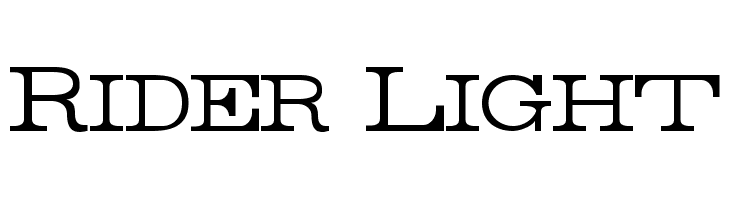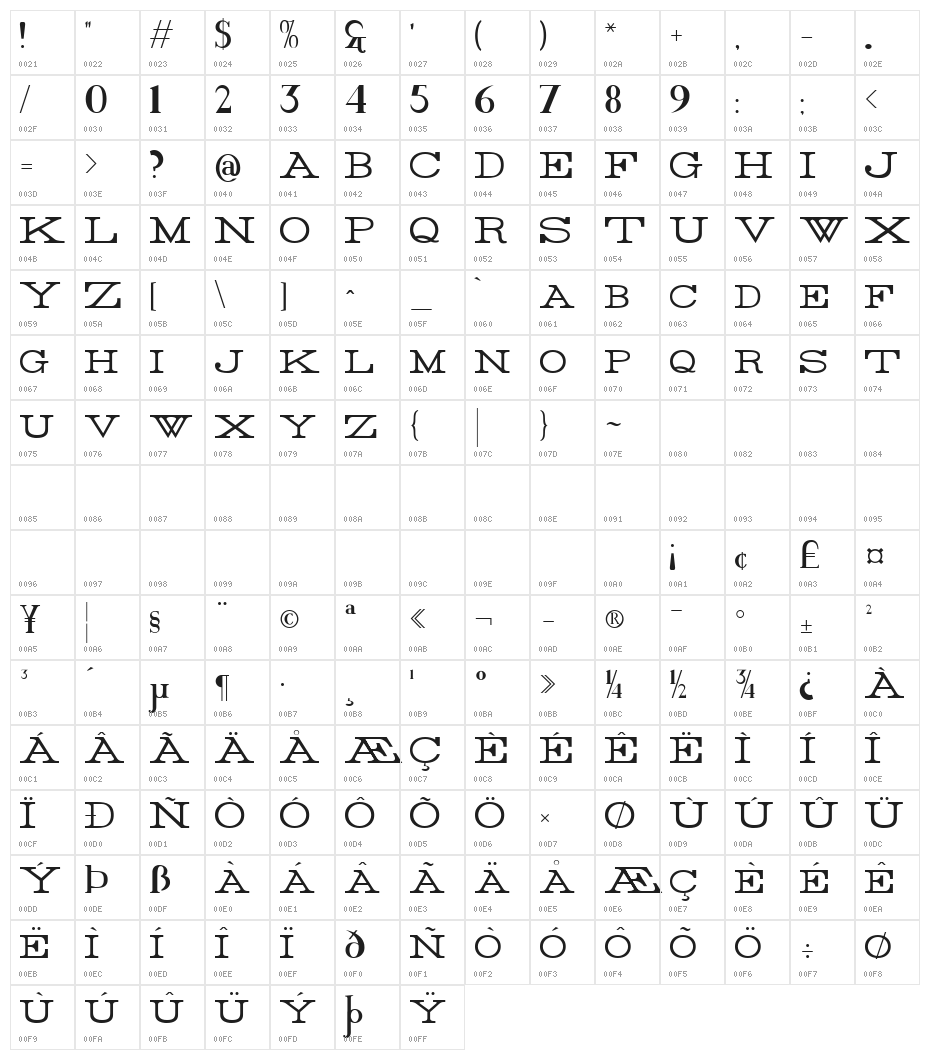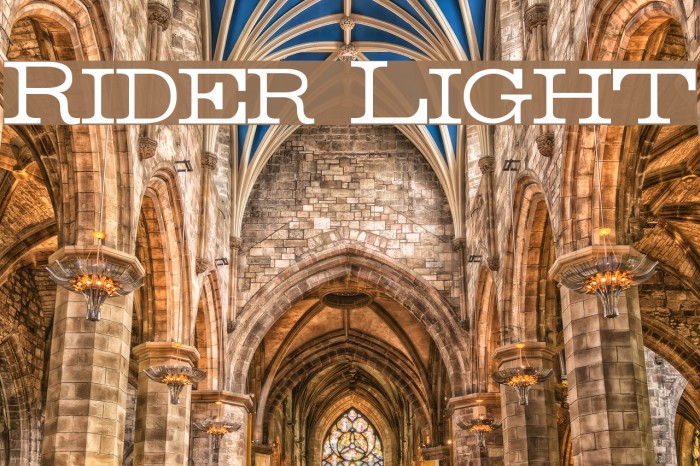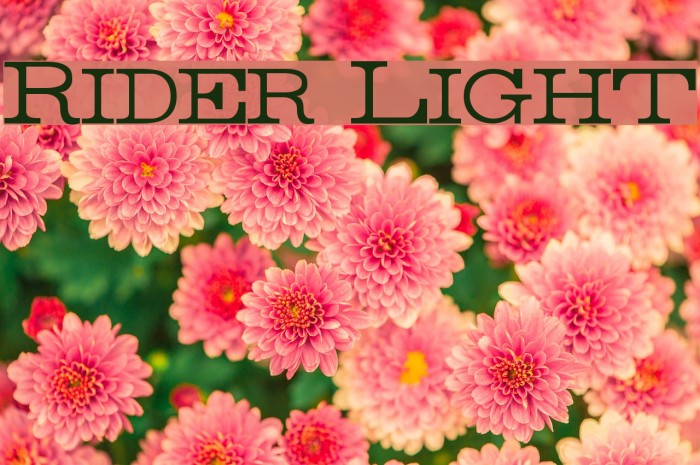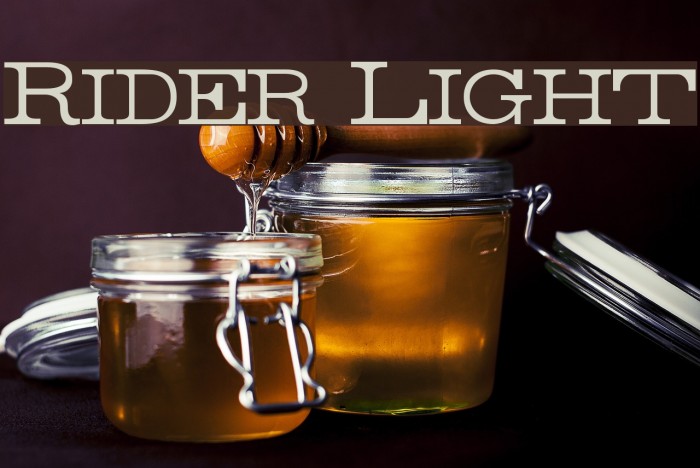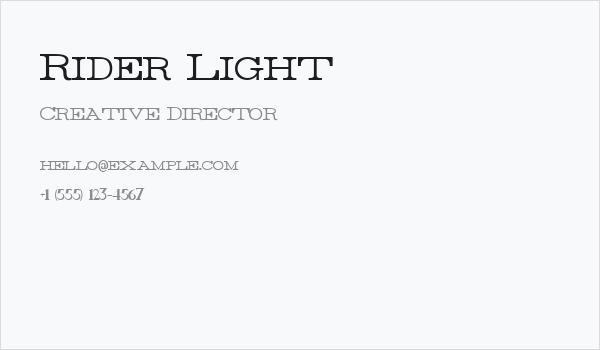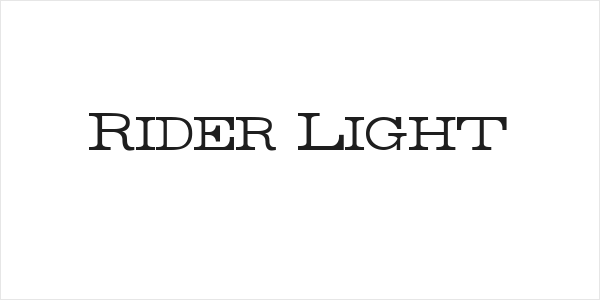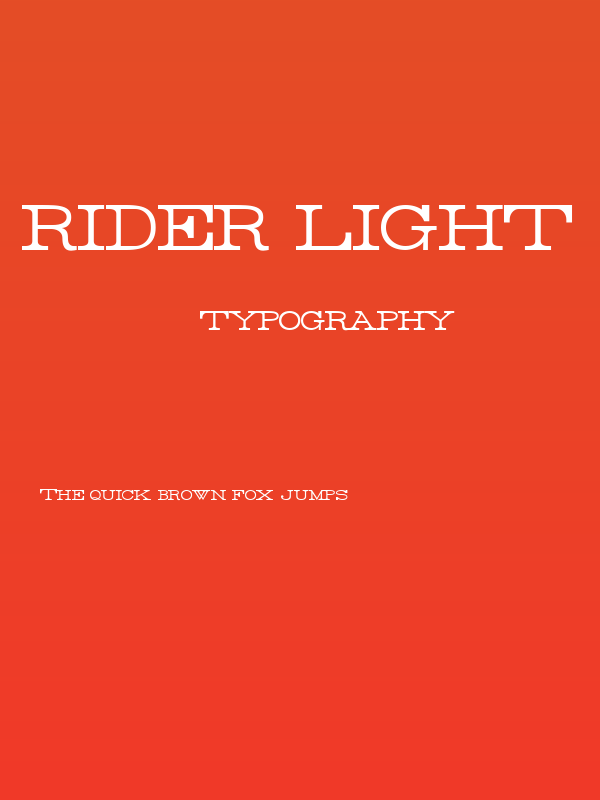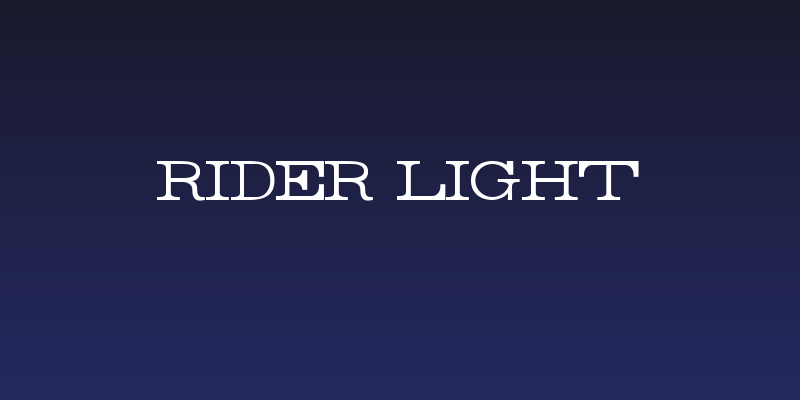
Rider Light Font
Rider Light Description
This font features a classic serif design with a modern twist. The uppercase letters are bold and commanding, with sharp serifs that give them a strong presence. The lowercase letters maintain a consistent style, offering a harmonious blend with the uppercase. The numerals are distinct and easily readable, with a slight flair that adds character. Special characters are well-defined, maintaining the overall aesthetic of the font. The stroke contrast is medium, providing a balanced look that is neither too stark nor too subtle. This font is versatile, suitable for both formal and creative applications.
| Proposed Projects | Ideal for editorial design, book covers, branding, and formal invitations. |